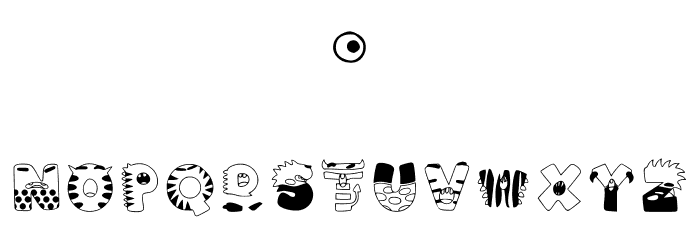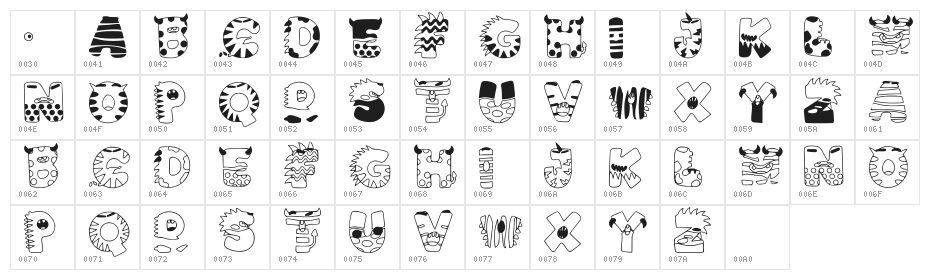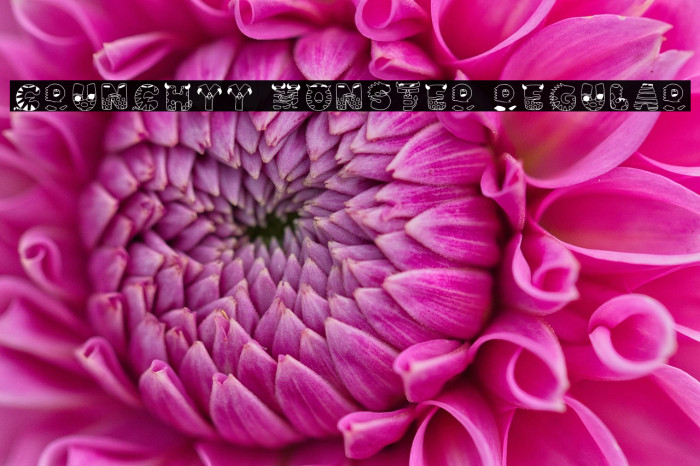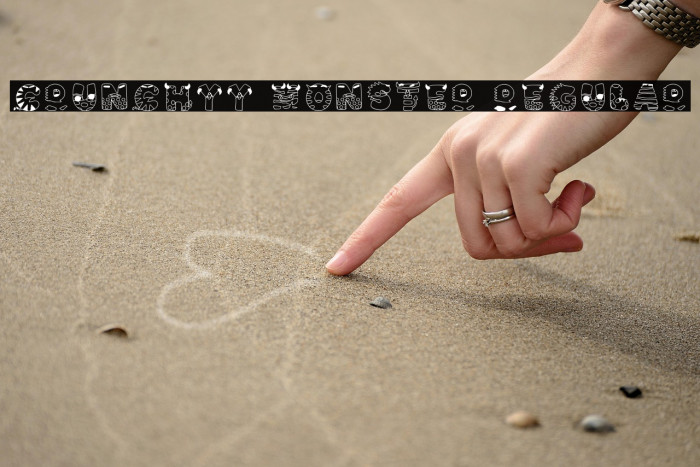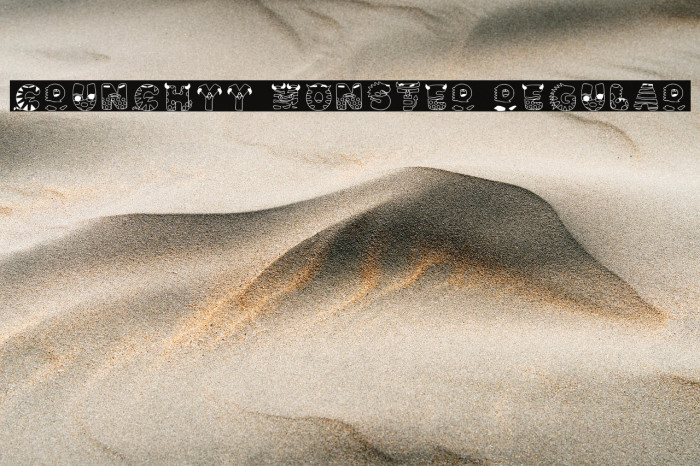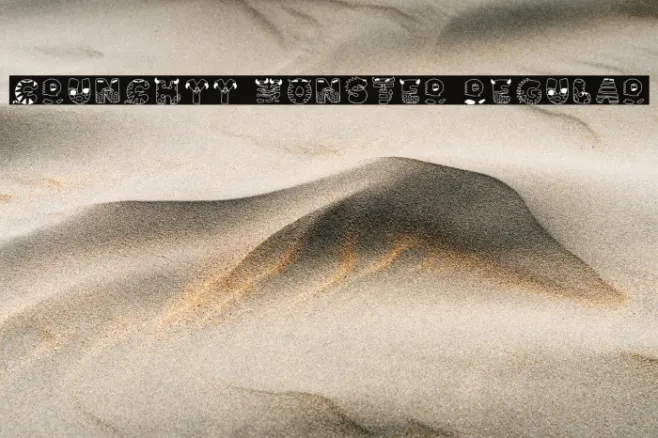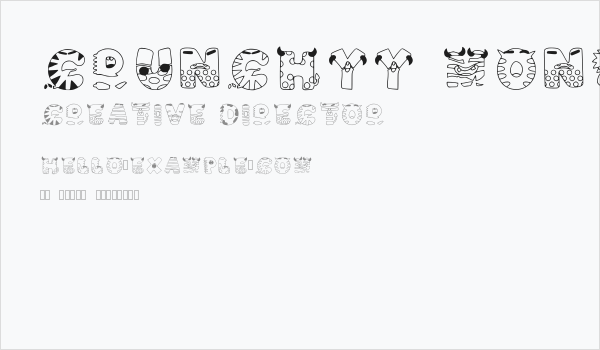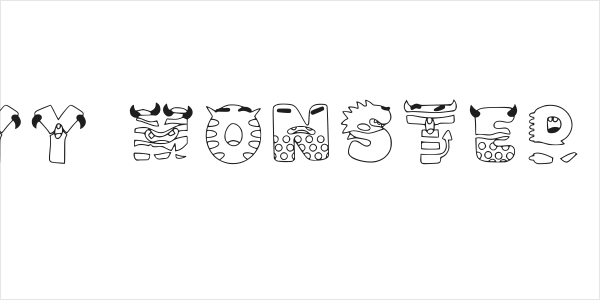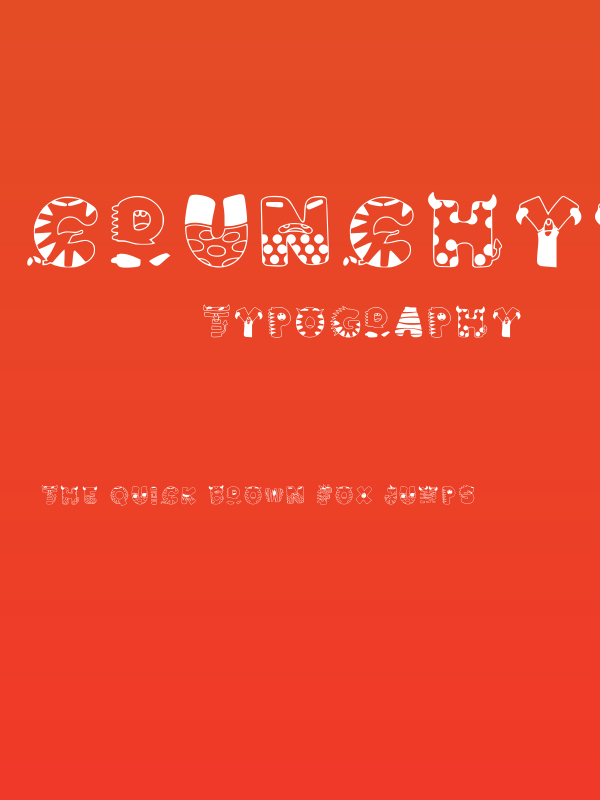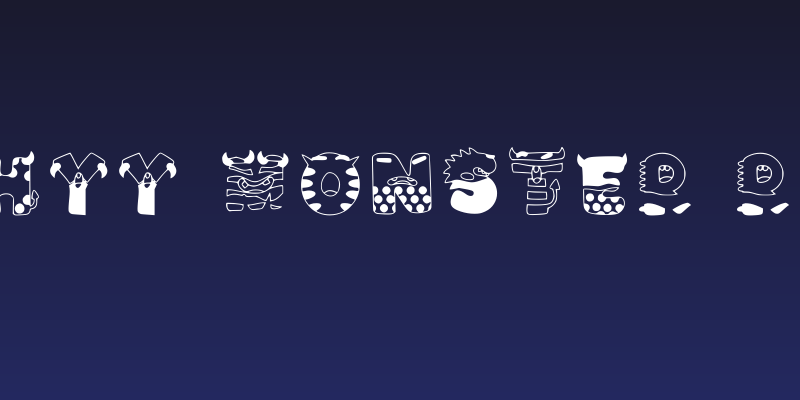
Crunchyy Monster Regular Font
Crunchyy Monster Regular Description
This playful and whimsical font features a variety of monster-themed designs within each character. Each letter is uniquely styled with patterns resembling scales, fur, and other monstrous textures, creating a lively and engaging appearance. The font is highly decorative, with each character incorporating elements like eyes, teeth, and horns, adding a fun and imaginative touch. The overall design is bold and eye-catching, making it suitable for projects that require a creative and entertaining look. The characters are well-defined, with a mix of solid and outlined elements that enhance the playful theme.
| Proposed Projects | Ideal for children's books, Halloween-themed events, playful branding, and creative posters. |